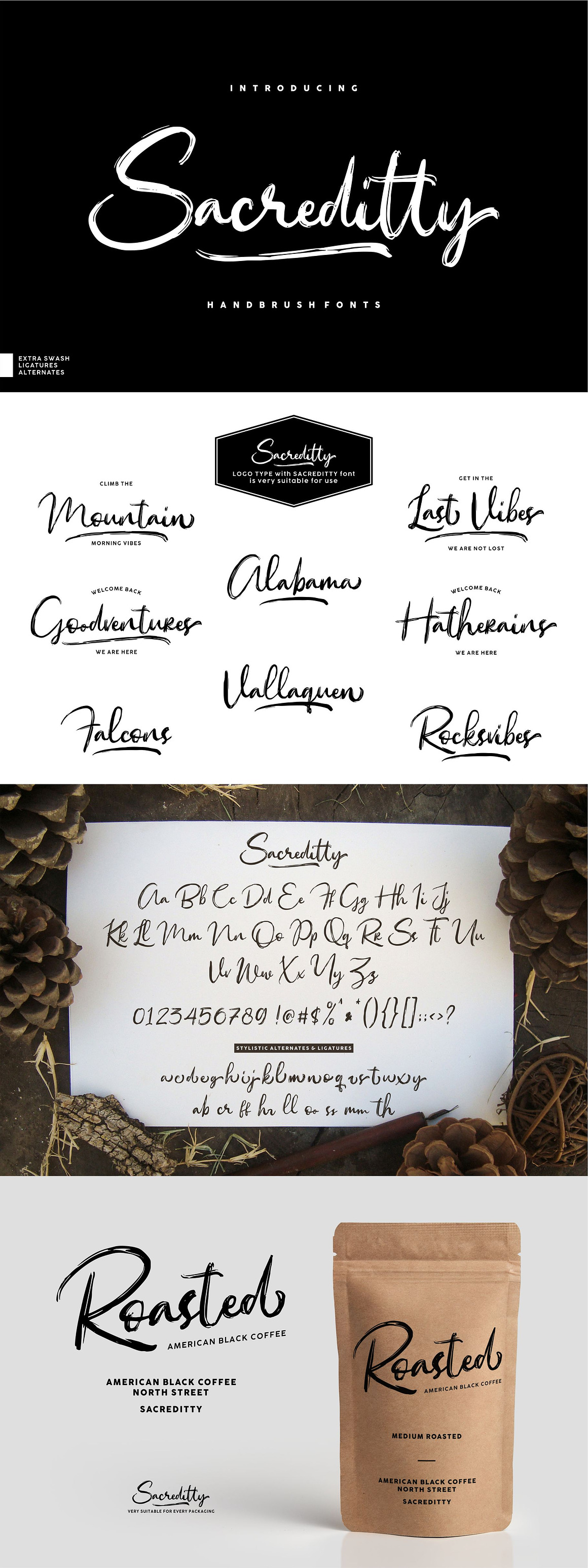
Sacreditty Handbrush Fonts
Sacreditty Handbrush Fonts are a distinctive choice for projects that require a raw, artistic touch. This font is perfectly suited for a variety of applications, including urban-themed branding, concert posters, social media quotes, personalized merchandise, and YouTube thumbnails. Its unique, expressive style makes it ideal for designs that aim to feel authentic and energetic.
What makes Sacreditty Handbrush Fonts so exciting is their bold and unapologetic character. Each letter is crafted to look like it was created with a real paintbrush, complete with natural textures and imperfections that add a sense of movement and spontaneity. This isn't a clean, polished font; it’s a typeface that captures the spirit of creativity and hands-on artistry. It brings an edgy, modern vibe to any project, making it a powerful tool for visual storytelling.
The font family for Sacreditty Handbrush Fonts includes several weights and stylistic alternates that allow for great flexibility. This includes options for both regular and bold styles, as well as a variety of ligatures and swashes that enable you to customize the typography to perfectly fit your design vision. The different styles within the family allow for a consistent visual identity across different design elements, from headings to supporting text.
Sacreditty Handbrush Fonts are also optimized for high-resolution displays, ensuring that the intricate brush strokes remain sharp and clear whether on a website, a large banner, or a printed t-shirt. The font’s legibility, despite its hand-drawn appearance, is a key feature, making it suitable for both headlines and short text blocks. Its versatility means it pairs well with simple sans-serif fonts, creating a dynamic contrast that draws the eye.
The creative potential of Sacreditty Handbrush Fonts is truly vast. Imagine using it to design a striking logo for a new startup in the creative sector, or to create a compelling headline for a blog post that needs to stand out. Its informal yet powerful appearance is perfect for engaging younger audiences and conveying a sense of authenticity. The font can also be used to add a personal, customized feel to invitations or greeting cards, making them feel less generic and more special.
Furthermore, the OpenType features included with Sacreditty Handbrush Fonts allow for an incredible level of customization. With features like stylistic sets and alternate characters, you can easily modify the look of your text to create a completely unique aesthetic. These features are compatible with most major design software, giving you the control to fine-tune every detail of your typography. This ensures that your final design is one-of-a-kind.
The growing popularity of Sacreditty Handbrush Fonts is a clear indicator of its appeal to modern designers. Its unique hand-drawn style fills a niche that many clean, digital fonts cannot. It brings a human element back into design, making projects feel more personal and relatable. By choosing this font, you are embracing a design philosophy that values authenticity and expression.
In conclusion, Sacreditty Handbrush Fonts are a powerful tool for any designer looking to make a bold statement. They offer a perfect blend of raw energy and practical functionality. The font's ability to add a distinct, handcrafted feel to any project makes it an essential resource for creative professionals. With its expressive design and versatile features, Sacreditty Handbrush Fonts Free Download is the perfect addition to your font collection, ready to bring an urban, artistic edge to your next creative endeavor.